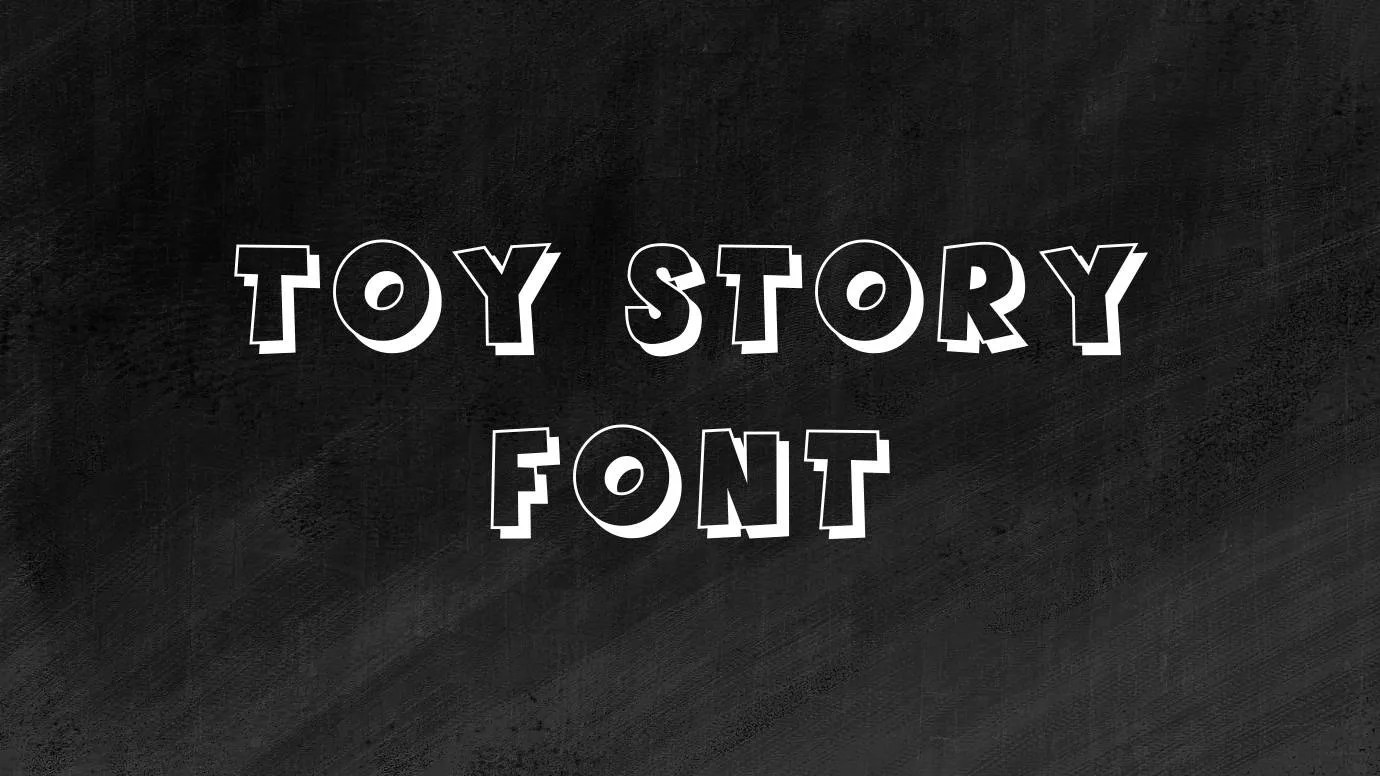
Toy Story Font For Free . Just enter your text and select a font to get started. We’re here to offer you the classic toy story font free of charge. Try our text generator and create cool graphics for toy story font, then you can save the font image to your pc, mac, linux, ios and android device. Characterized with a blue outline and yellow interior this font was used on all 4 toy story movies. Today we present the toy story typeface from walt disney’s 1995 american adventure film toy story, released november 19, 1995, has become one of the. Toy story font generator & download is available free at fontbolt. The text generator below will let you create a toy story like logo. Toy story font is a customized unique disney sans serif typeface, and this font is good for making stationery and creative design templates. Use the text generator below to convert your text into graphics online with toy story font, you can then save the image or click on the embed. We suggest you use thick sans serifs for better results but you can try. Toy story is very suitable best for. We searched the web and discovered the most closest toy story similar fonts and these fonts are completely free for. Toy story all 4 movies.
Characterized with a blue outline and yellow interior this font was used on all 4 toy story movies. Toy story font generator & download is available free at fontbolt. We’re here to offer you the classic toy story font free of charge. Today we present the toy story typeface from walt disney’s 1995 american adventure film toy story, released november 19, 1995, has become one of the. We suggest you use thick sans serifs for better results but you can try. Just enter your text and select a font to get started. Use the text generator below to convert your text into graphics online with toy story font, you can then save the image or click on the embed. We searched the web and discovered the most closest toy story similar fonts and these fonts are completely free for. The text generator below will let you create a toy story like logo. Try our text generator and create cool graphics for toy story font, then you can save the font image to your pc, mac, linux, ios and android device.
Toy Story Font For Free We suggest you use thick sans serifs for better results but you can try. Just enter your text and select a font to get started. Toy story all 4 movies. Toy story font is a customized unique disney sans serif typeface, and this font is good for making stationery and creative design templates. Characterized with a blue outline and yellow interior this font was used on all 4 toy story movies. The text generator below will let you create a toy story like logo. Toy story font generator & download is available free at fontbolt. Use the text generator below to convert your text into graphics online with toy story font, you can then save the image or click on the embed. Today we present the toy story typeface from walt disney’s 1995 american adventure film toy story, released november 19, 1995, has become one of the. Toy story is very suitable best for. We searched the web and discovered the most closest toy story similar fonts and these fonts are completely free for. Try our text generator and create cool graphics for toy story font, then you can save the font image to your pc, mac, linux, ios and android device. We’re here to offer you the classic toy story font free of charge. We suggest you use thick sans serifs for better results but you can try.
Free Toy Story Font For Free Toy story font is a customized unique disney sans serif typeface, and this font is good for making stationery and creative design templates. Try our text generator and create cool graphics for toy story font, then you can save the font image to your pc, mac, linux, ios and android device. We searched the web and discovered the most closest. Toy Story Font For Free.
Toy Story Font Free Download Toy Story Font Toy Story Lettering Porn Toy Story Font For Free Characterized with a blue outline and yellow interior this font was used on all 4 toy story movies. Just enter your text and select a font to get started. Try our text generator and create cool graphics for toy story font, then you can save the font image to your pc, mac, linux, ios and android device. Toy story all. Toy Story Font For Free.
Toy Story Fonts That Will Bring Out The Kid In You HipFonts Toy Story Font For Free Just enter your text and select a font to get started. Use the text generator below to convert your text into graphics online with toy story font, you can then save the image or click on the embed. Today we present the toy story typeface from walt disney’s 1995 american adventure film toy story, released november 19, 1995, has become. Toy Story Font For Free.